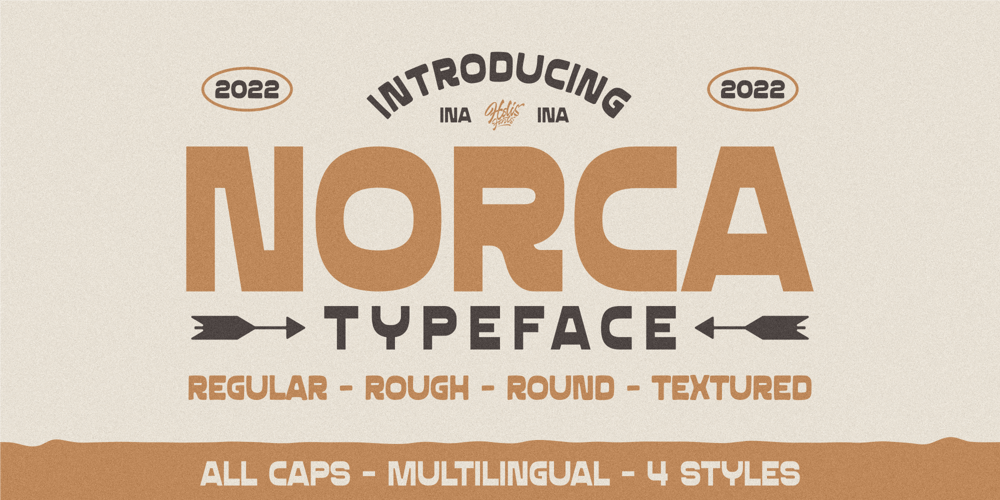
Norca Font Family was designed by Holis Majid and published by Holis.Mjd. Norca contains 4 styles and family package options. Norca is a typeface available in 4 types of styles, regular/clean, round, rough and textured. Available in all caps mode, suitable for designs with classic, vintage, and retro styles.